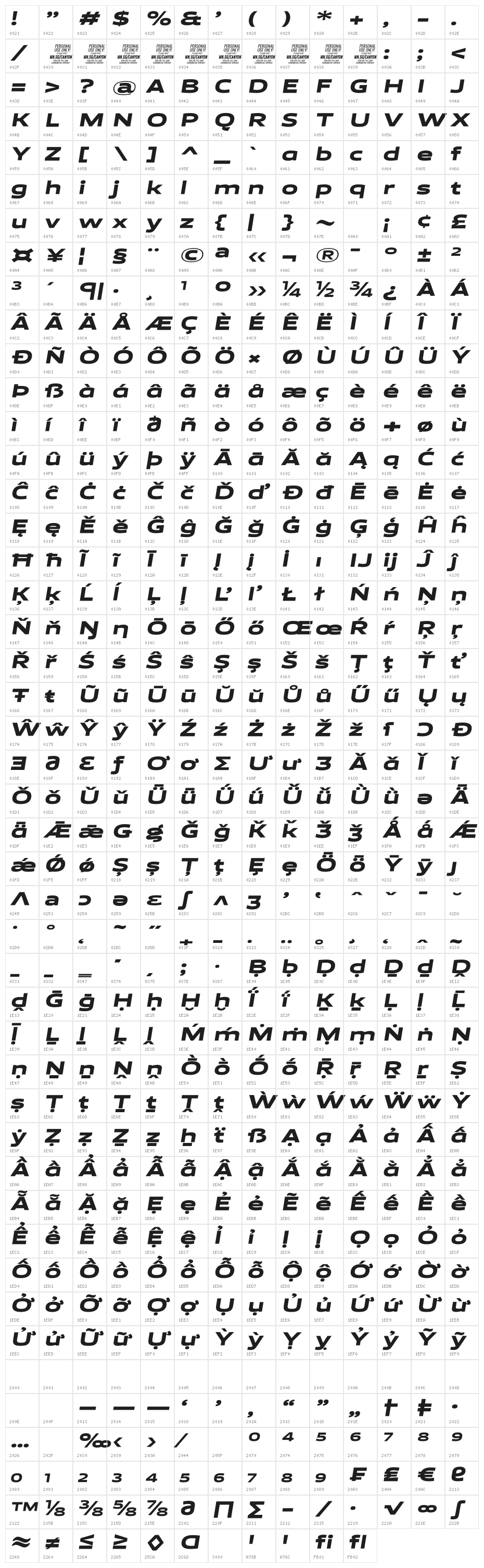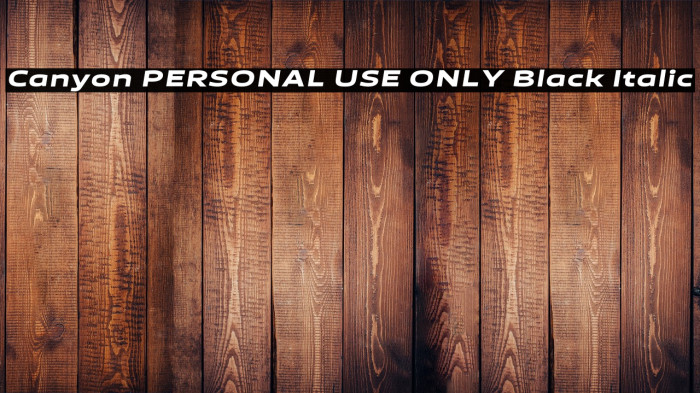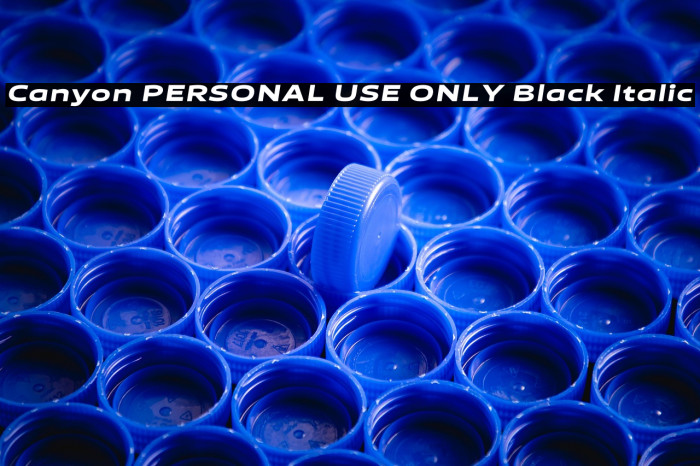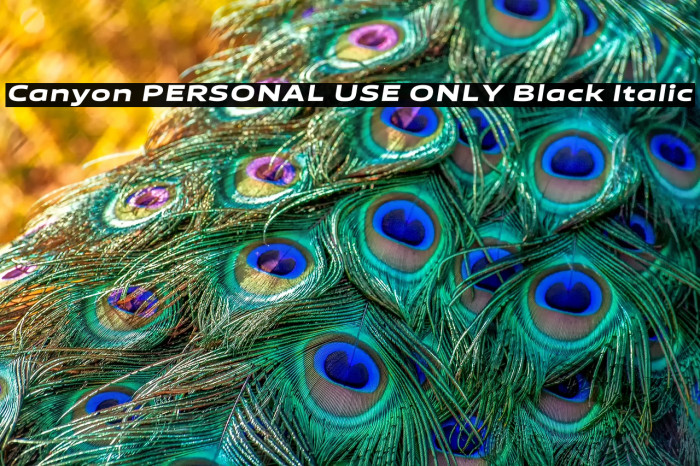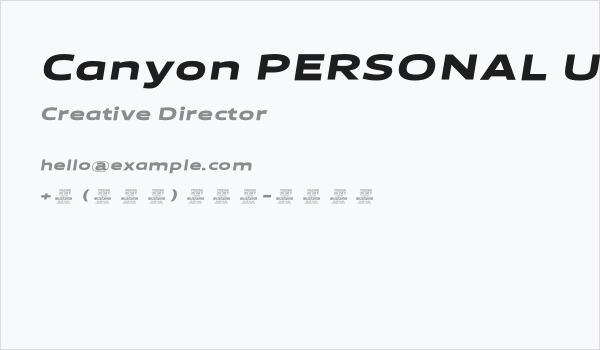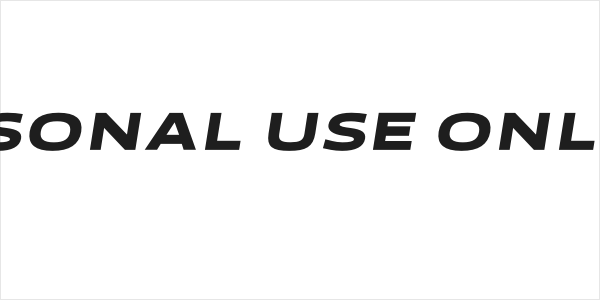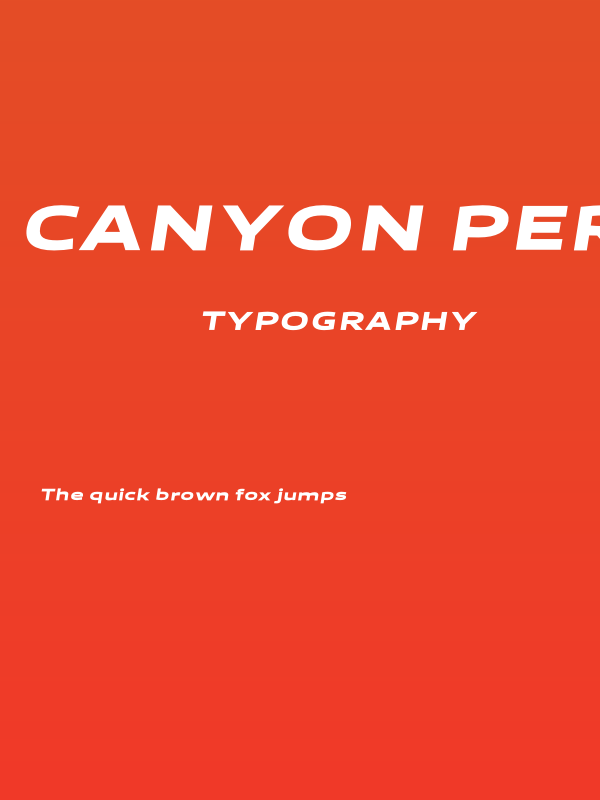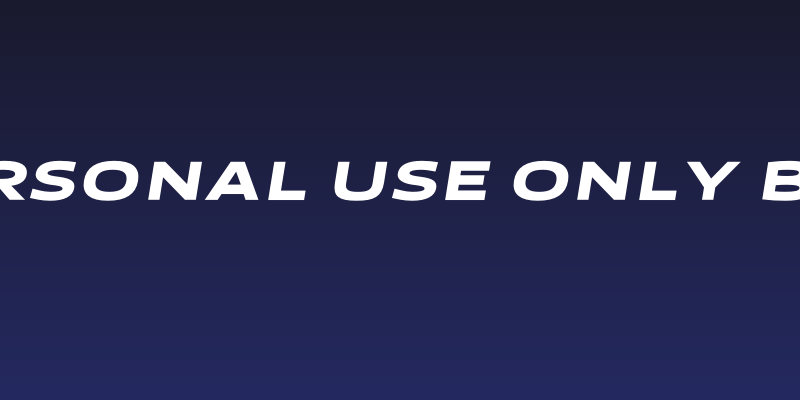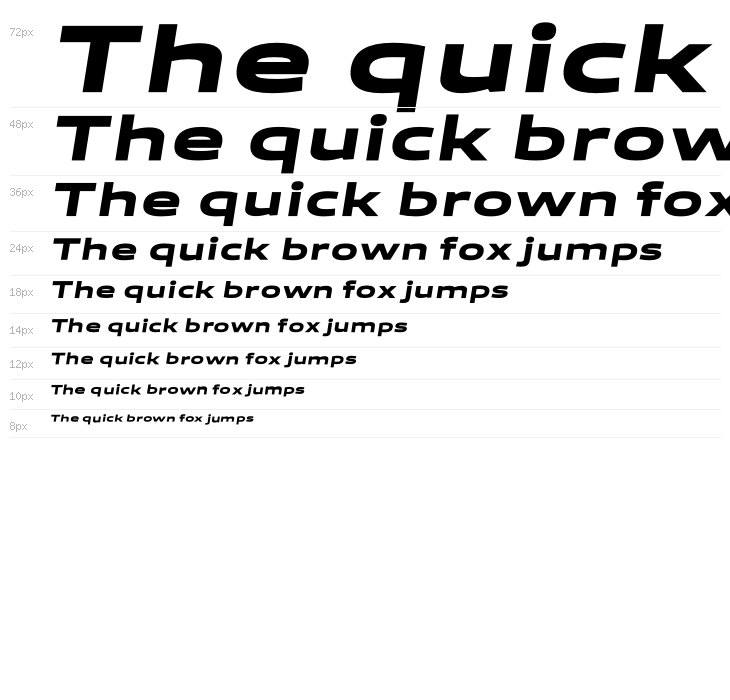
Canyon PERSONAL USE ONLY Black Italic Font
Canyon PERSONAL USE ONLY Black Italic Description
This font features a bold and italicized style, characterized by its strong, dynamic presence. The uppercase and lowercase letters are designed with a forward slant, giving a sense of movement and energy. The strokes are thick and consistent, contributing to a robust and impactful appearance. The characters are well-defined, with a slight curvature that adds a modern touch. The numbers and special characters maintain the same bold and italicized style, ensuring uniformity across all glyphs. This font is suitable for making statements and capturing attention.